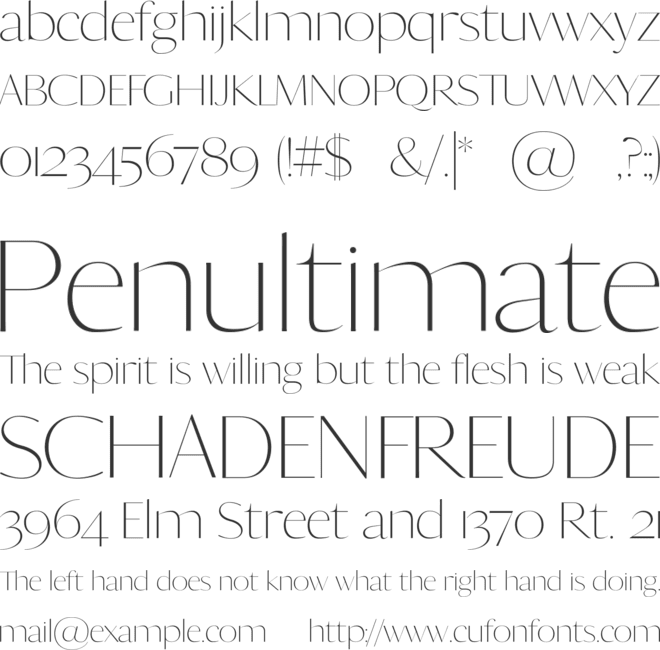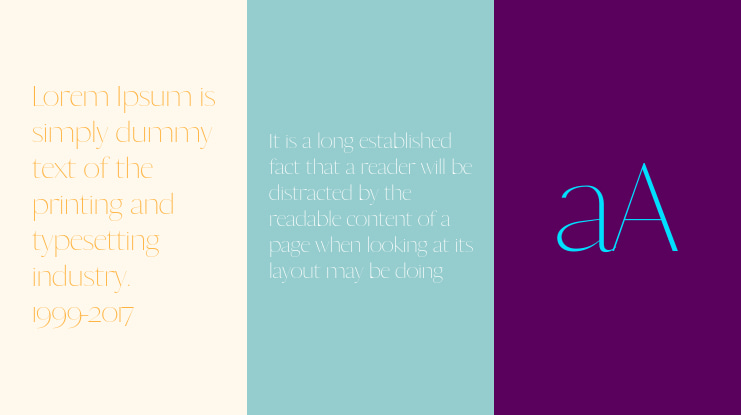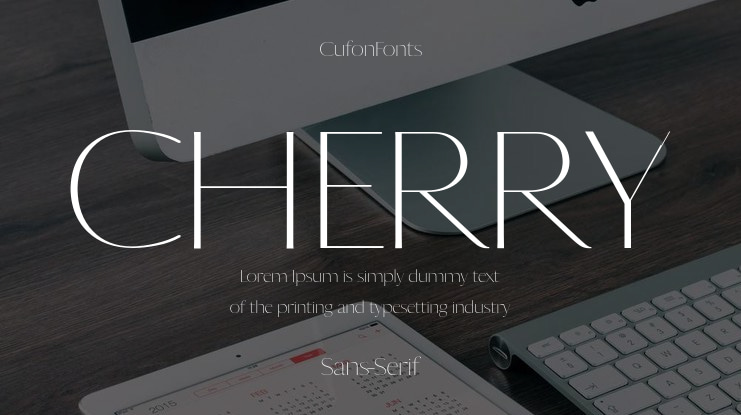
CHERRY Font Family
🎨 Font Name: Cherry by Minimalist Art Studio
🎨 Font description: Cherry is a delicate sans serif with multilingual support—ideal for feminine branding, minimalist packaging, and editorial elegance.